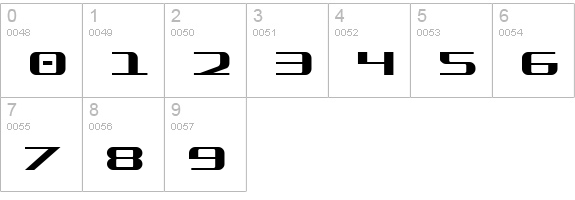
The SDF font is a beautifully crafted typeface that exudes elegance and sophistication. With its sleek lines and modern design, this font is perfect for creating stunning visual projects that demand attention. The best part? It's completely free for personal and commercial use, making it a versatile and accessible option for all your design needs. You can easily download the SDF font for free at FontsMarket.com, where you'll discover a wide range of high-quality fonts to enhance your creative endeavors. Don't miss out on this fantastic opportunity to elevate your designs with the stylish and timeless SDF font.